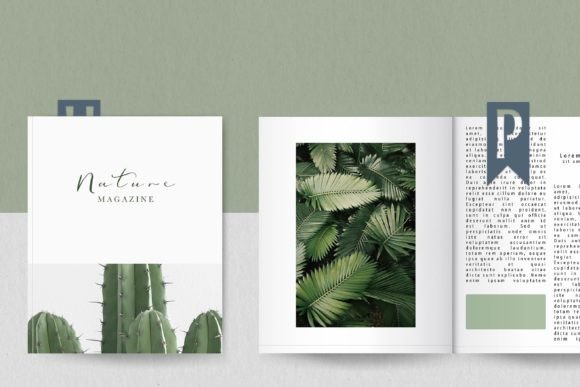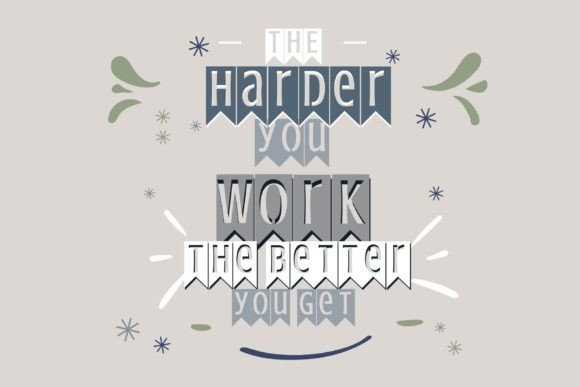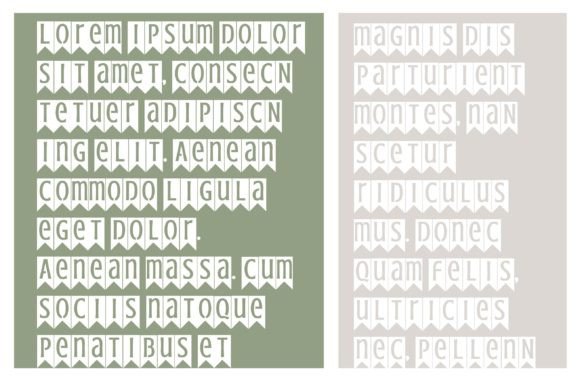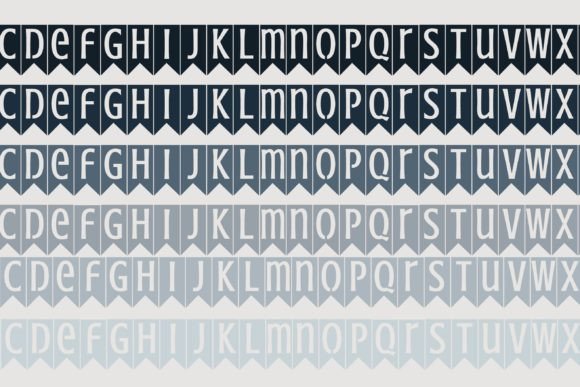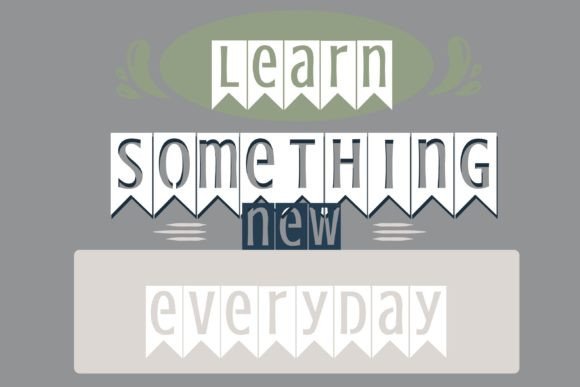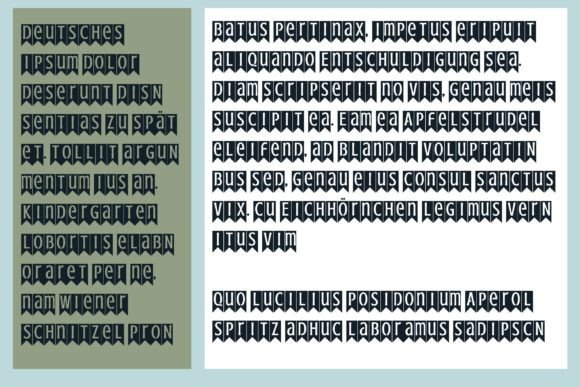
Introducing Bookmark Monogram Font: Elevate Your Crafting and Design Projects
Are you a designer, crafter, or DIY enthusiast looking for a unique and stylish font to add a personal touch to your projects? Look no further than the Bookmark Monogram Font, a monogrammed sans serif display font that’s perfect for creating customized bookmarks, signs, and other decorative items. In this article, we’ll explore the features and benefits of this versatile font, and show you how to make the most of it in your crafting and design endeavors.
What is Bookmark Monogram Font?
Bookmark Monogram Font is a carefully crafted, monogrammed sans serif display font that’s designed to make a statement. Its clean lines, elegant curves, and personalized touch make it an ideal choice for a wide range of applications, from bookmarks and signs to party decorations and gift tags. This font is specifically created to work seamlessly with cutting machines, allowing you to effortlessly cut out intricate designs and letters with precision and accuracy.
Key Features of Bookmark Monogram Font
- Monogrammed design: The Bookmark Monogram Font features a beautiful, interconnected monogram design that’s perfect for adding a personal touch to your projects.
- Sans serif style: The font’s sans serif style gives it a clean, modern look that’s perfect for a wide range of applications.
- Display font: The font is designed to be used as a display font, making it perfect for headlines, titles, and other prominent text elements.
- Cutting machine compatible: The font is optimized for use with cutting machines, making it easy to cut out intricate designs and letters with precision and accuracy.
Benefits of Using Bookmark Monogram Font
So why choose Bookmark Monogram Font for your crafting and design projects? Here are just a few benefits of using this versatile font:
- Personalized touch: The monogrammed design of the font adds a personal touch to your projects, making them truly unique and special.
- Ease of use: The font is easy to use and works seamlessly with cutting machines, saving you time and effort.
- Versatility: The font can be used for a wide range of applications, from bookmarks and signs to party decorations and gift tags.
- High-quality design: The font is carefully crafted to ensure high-quality design and precise cutting results.
Tips and Ideas for Using Bookmark Monogram Font
Now that you’ve learned about the features and benefits of Bookmark Monogram Font, here are some tips and ideas for using it in your crafting and design projects:
- Create customized bookmarks: Use the font to create personalized bookmarks for yourself or as gifts for friends and family.
- Make decorative signs: Use the font to create decorative signs for your home or office, adding a personal touch to your space.
- Design party decorations: Use the font to create customized party decorations, such as banners, garlands, and gift tags.
- Add a personal touch to gifts: Use the font to create customized gift tags and labels, adding a personal touch to your gifts.
In conclusion, Bookmark Monogram Font is a versatile and stylish font that’s perfect for designers, crafters, and DIY enthusiasts. Its monogrammed design, sans serif style, and display font features make it an ideal choice for a wide range of applications, from bookmarks and signs to party decorations and gift tags. With its ease of use, high-quality design, and cutting machine compatibility, this font is sure to become a favorite in your crafting and design toolkit.